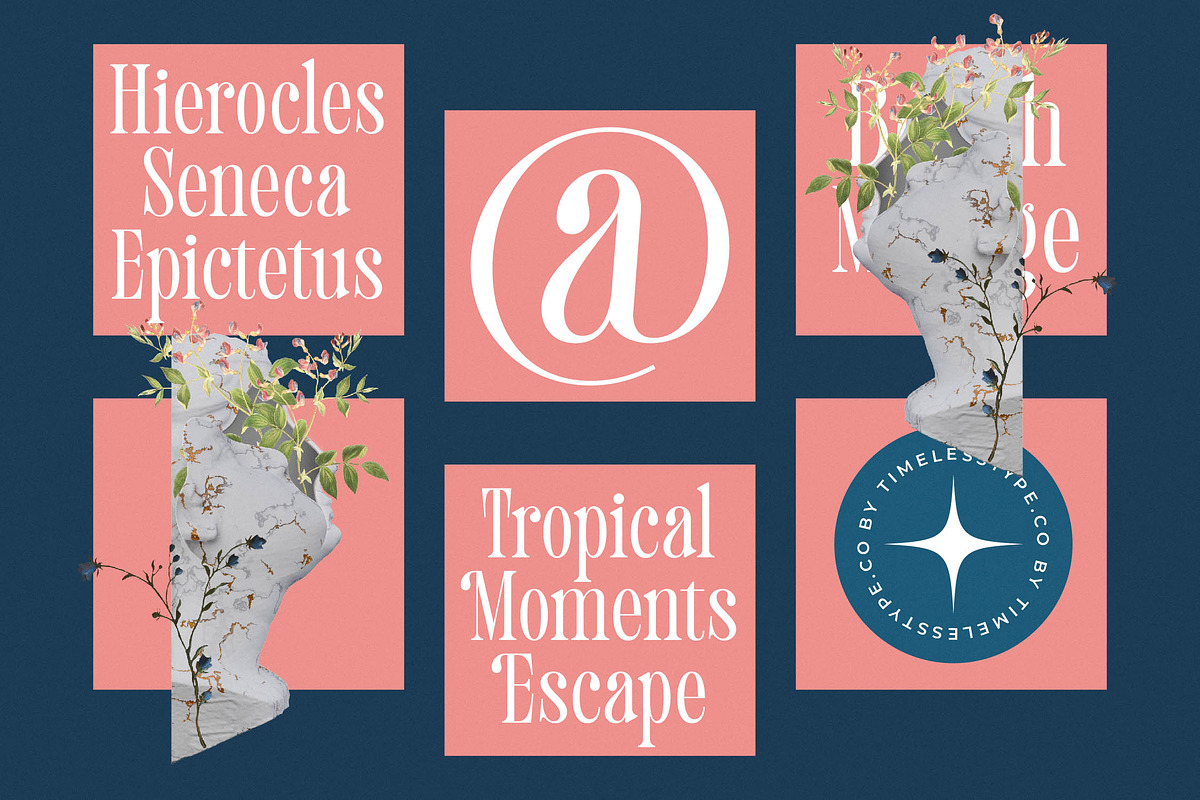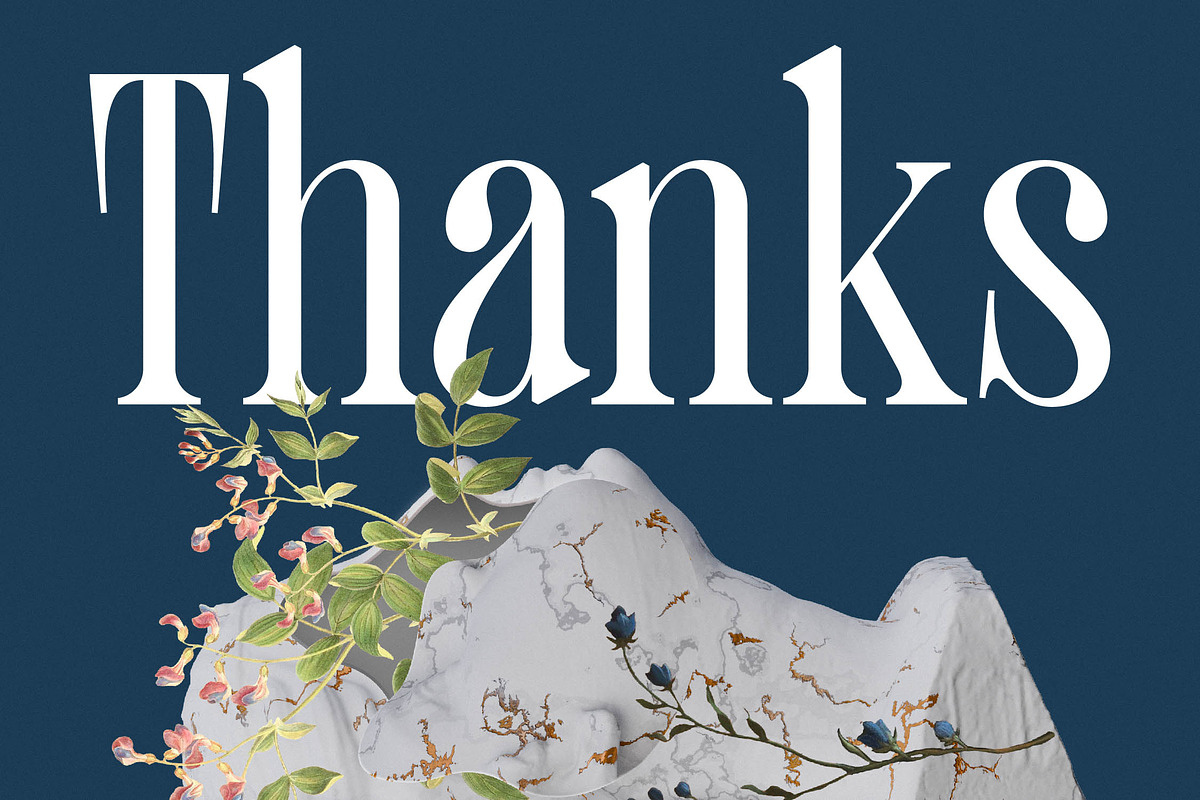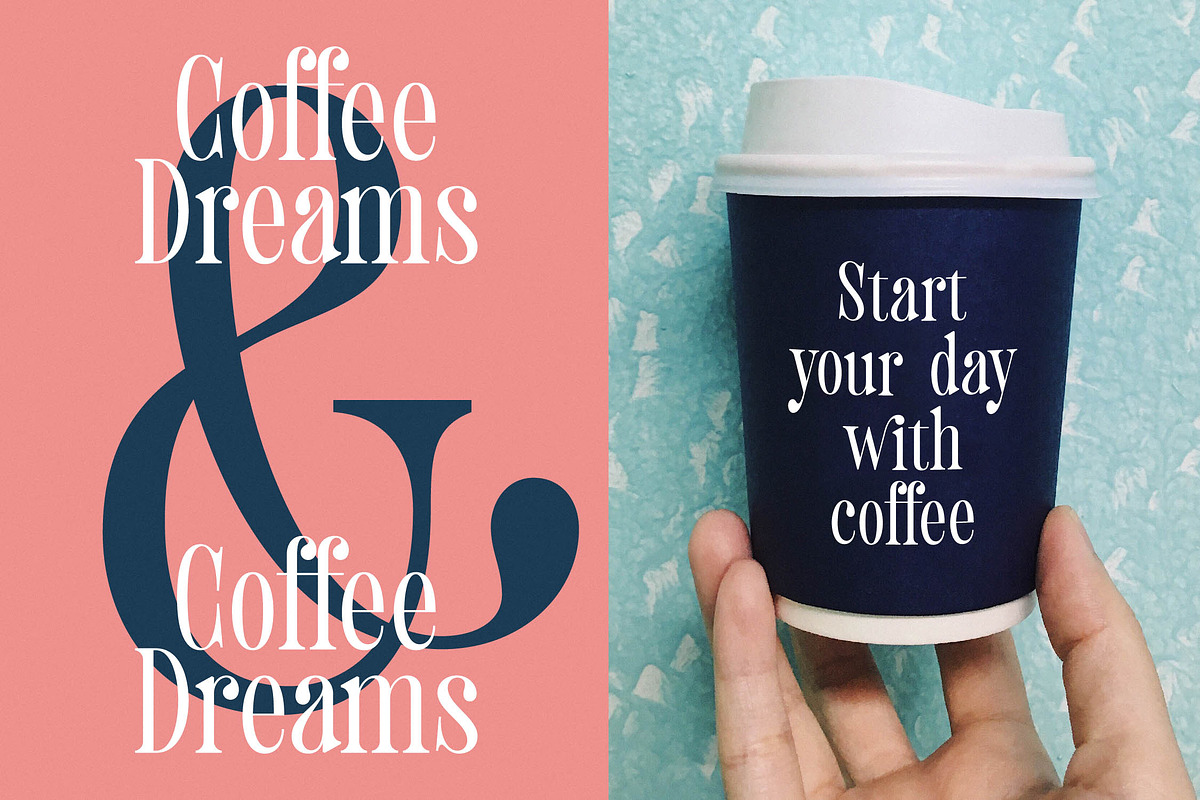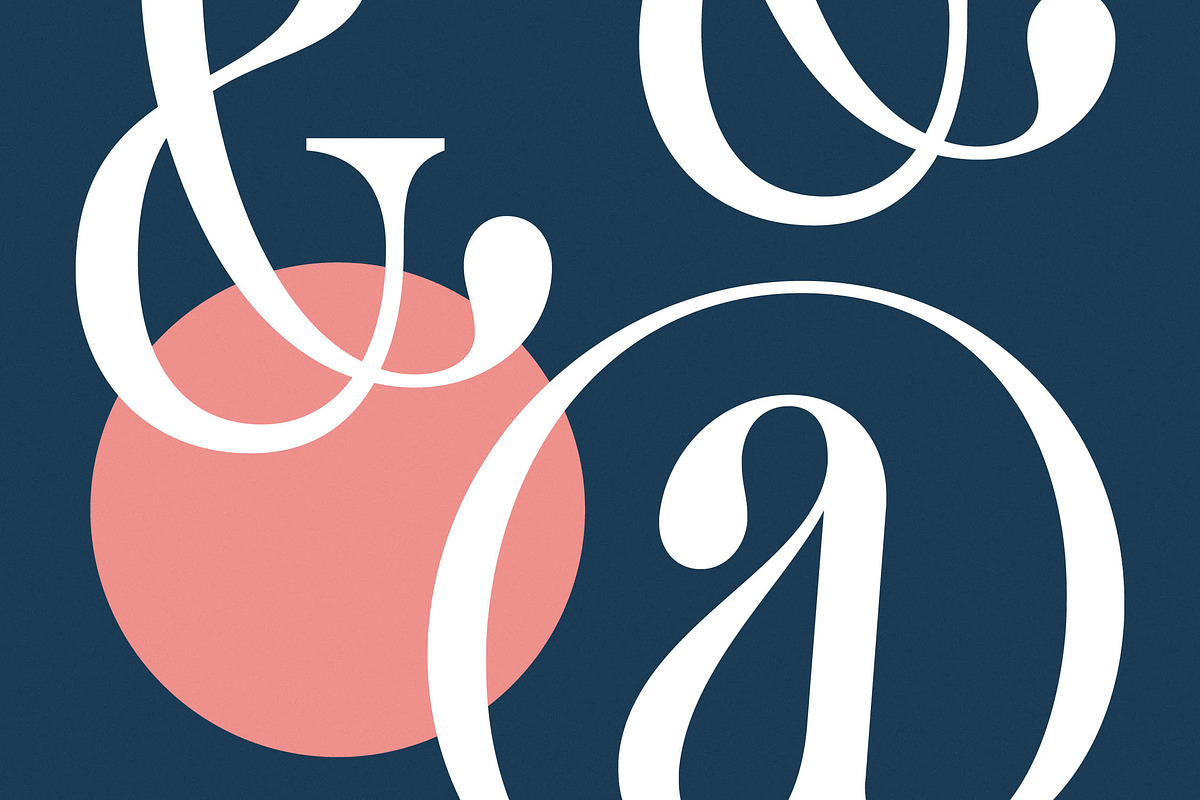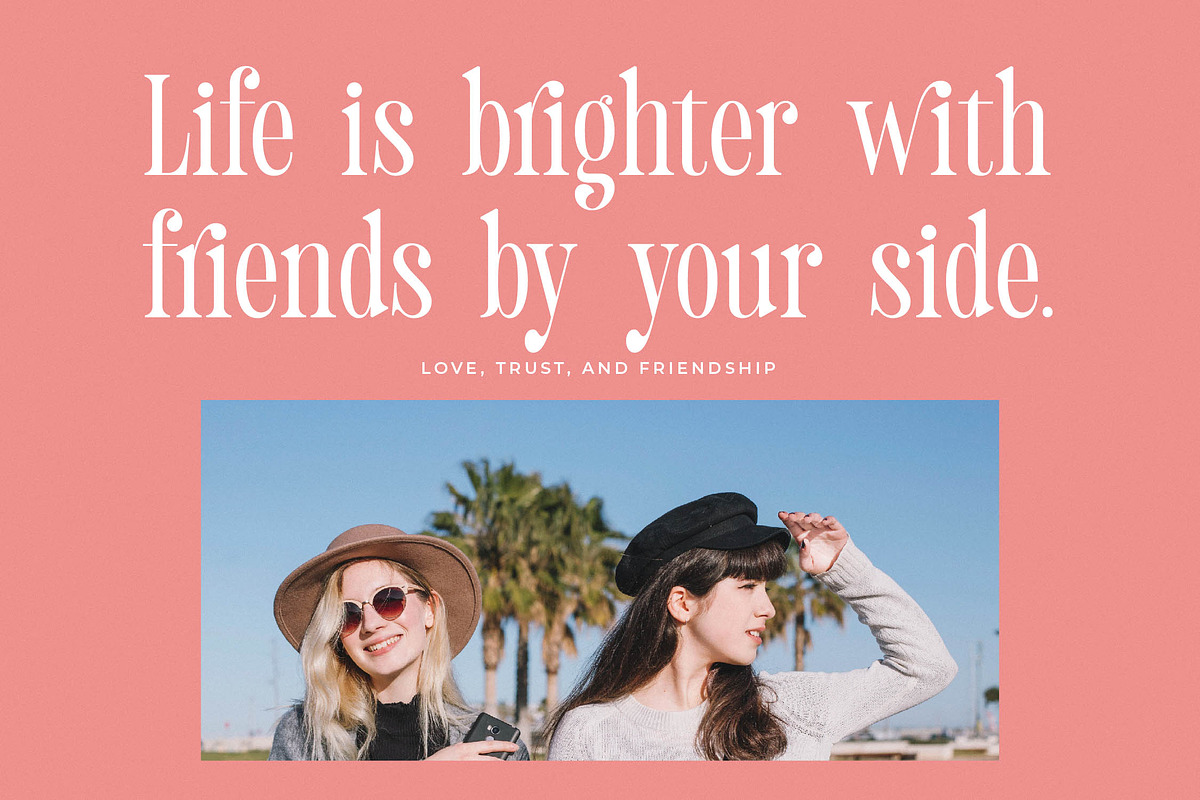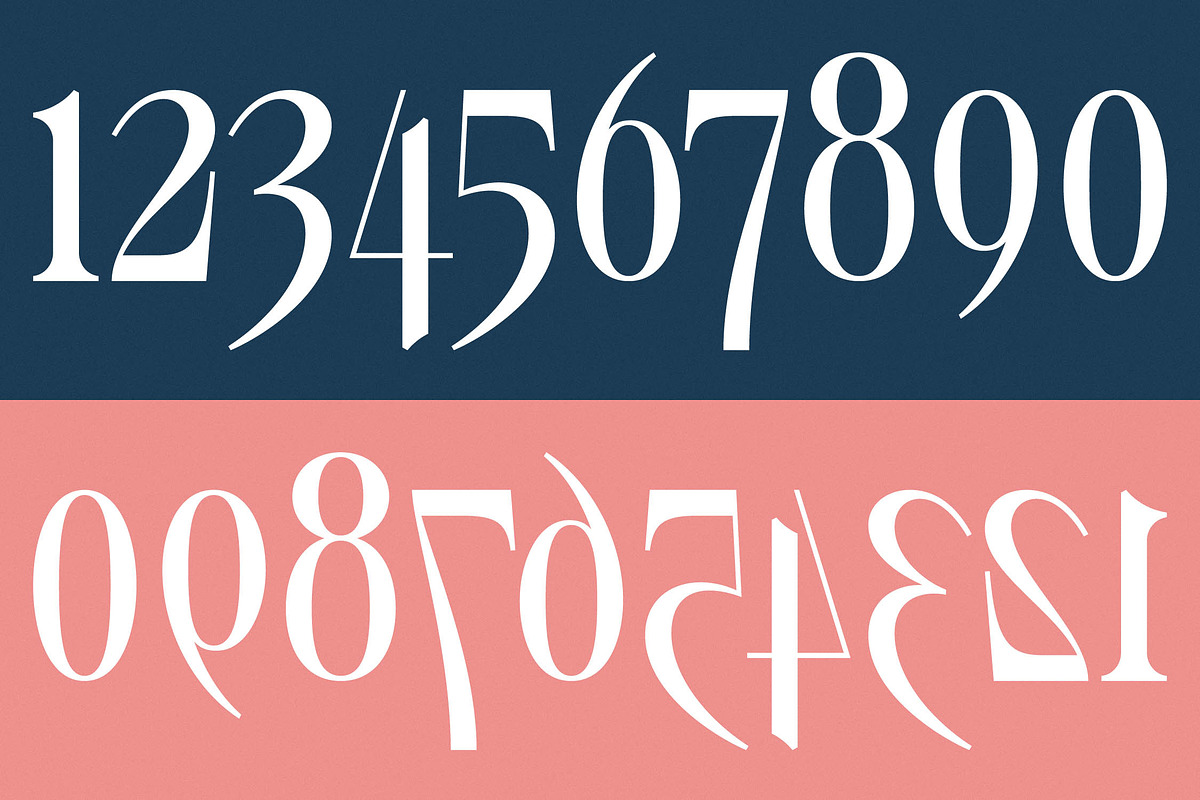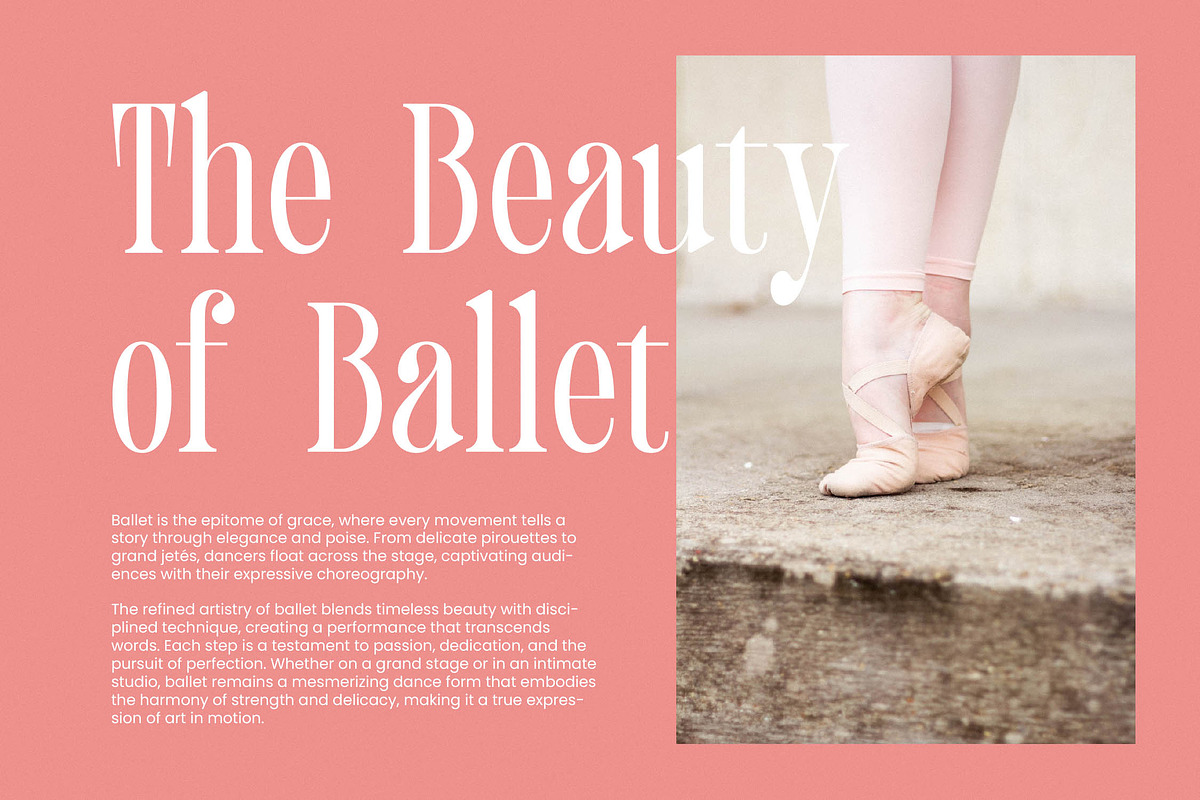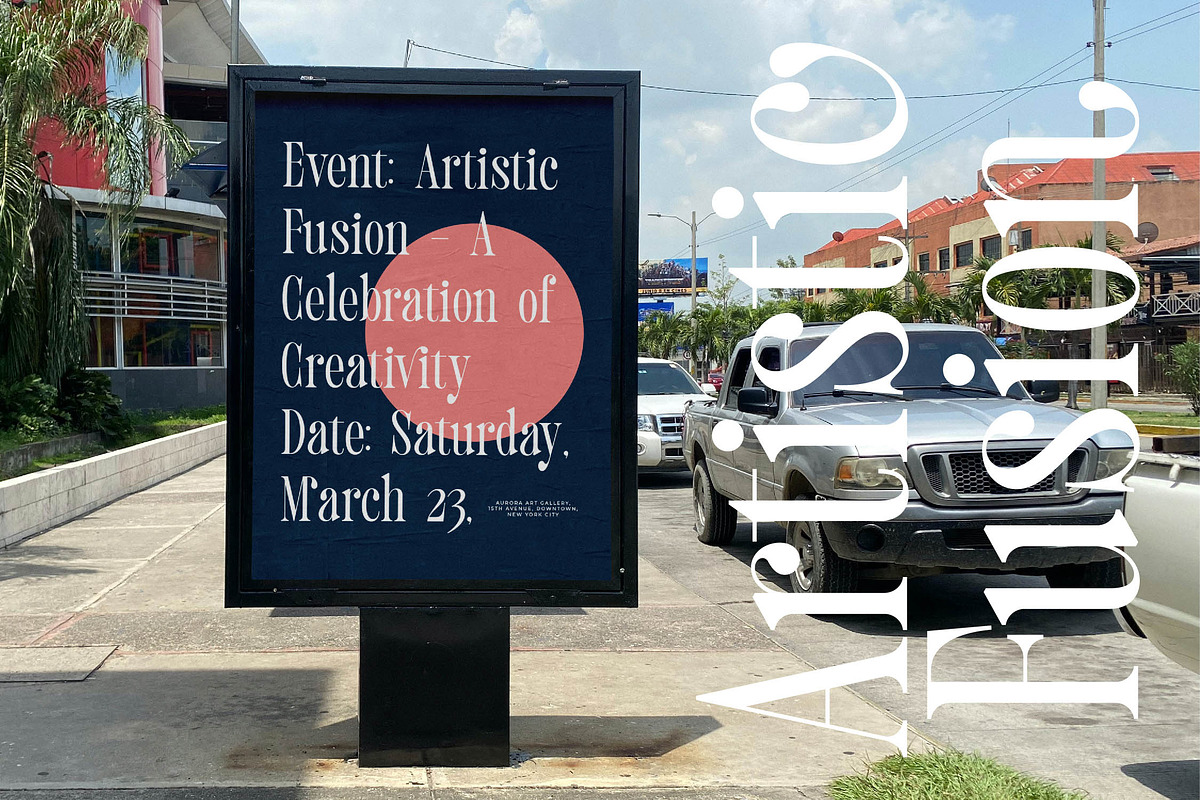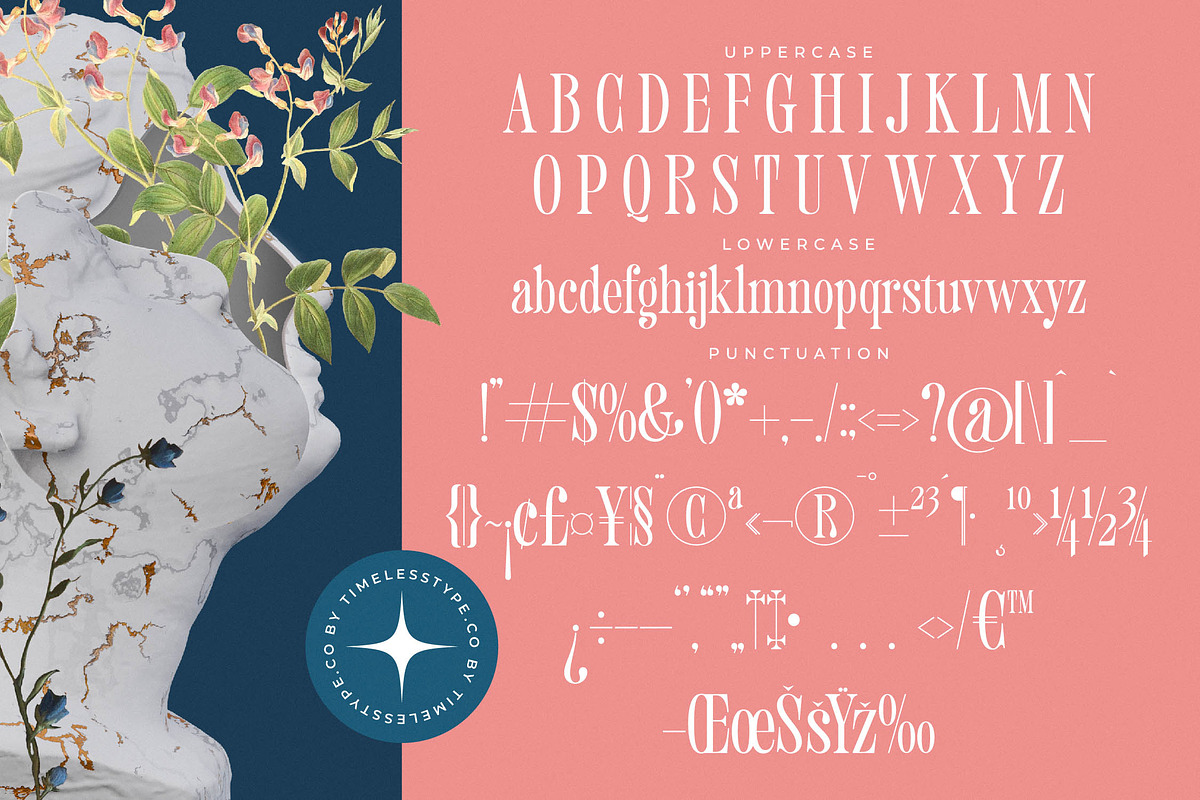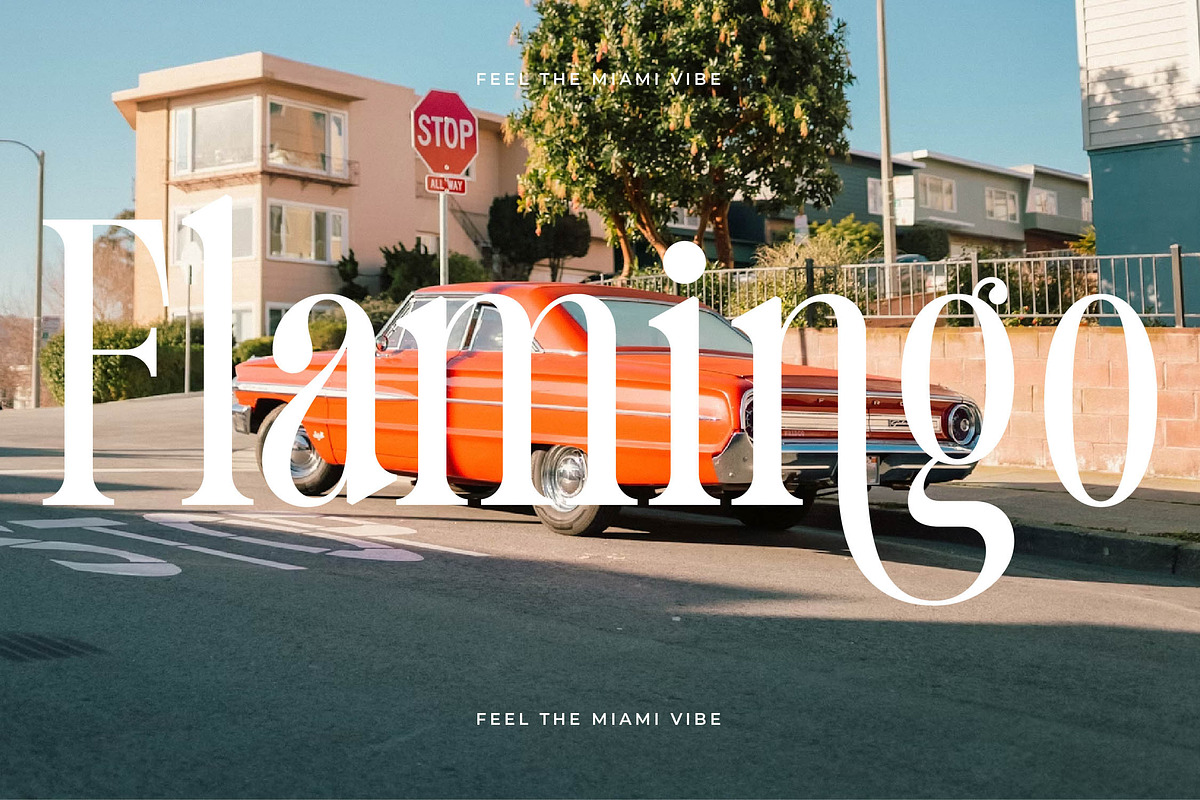
Trangels New Tall Serif Display
Trangels - New Tall Serif Display , from Timelesstype.Co , Suitable for any projects such as: logos, branding projects, homeware designs, product packaging, mugs, quotes, posters, shopping bags, t-shirts, book covers, name card, invitation cards, greeting cards, label, photography, watermark, special events, and all your other luxury and beautiful projects that need a Luxury Serif taste.
- Ligature 17 Alternate 57